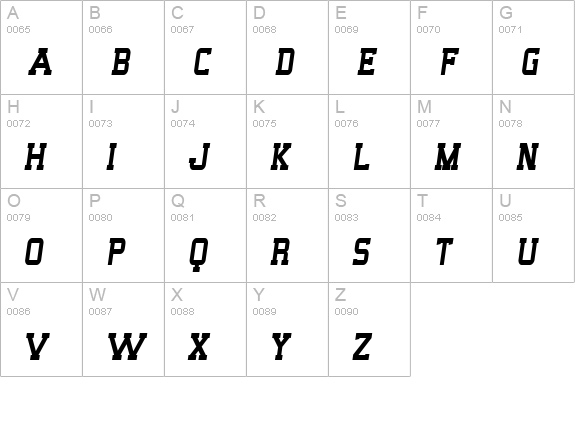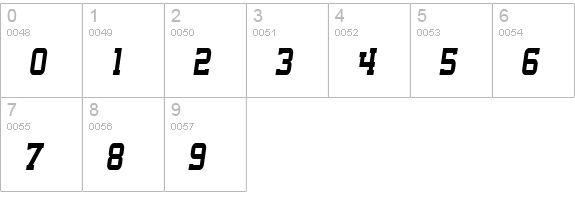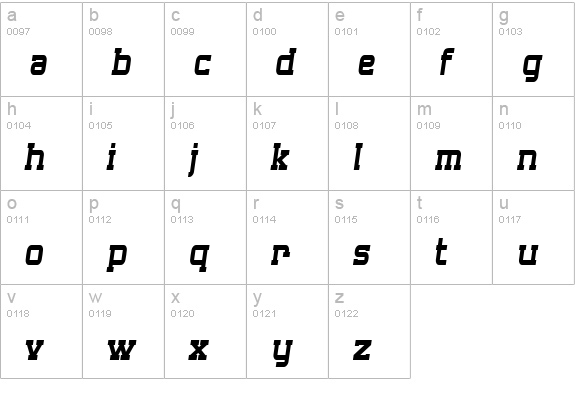
SF Big Whiskey Condensed Font Details
SF Big Whiskey Condensed is a distinctive, condensed-width variant in the SF typeface family \xE2\x80\x94 well suited to design and typography projects.
SF Big Whiskey Condensed is a stunning and versatile font that effortlessly combines a classic appeal with a modern twist. Its condensed form gives it a sleek and sophisticated look, making it perfect for a wide range of design projects. With its clean lines and bold presence, SF Big Whiskey Condensed demands attention and adds a touch of elegance to any design. Whether you're creating eye-catching headlines, stylish logos, or striking signage, this font will make your work stand out from the crowd. What makes SF Big Whiskey Condensed even more remarkable is that it is available for free! That's right, you can download this amazing font without spending a single penny. FontsMarket.com is proud to offer this font as a freely available resource, allowing designers and creatives to access top-quality typography without breaking the bank. So, why wait? Enhance your design projects with the alluring charm of SF Big Whiskey Condensed. Download it for free at FontsMarket.com and unleash your creativity today.